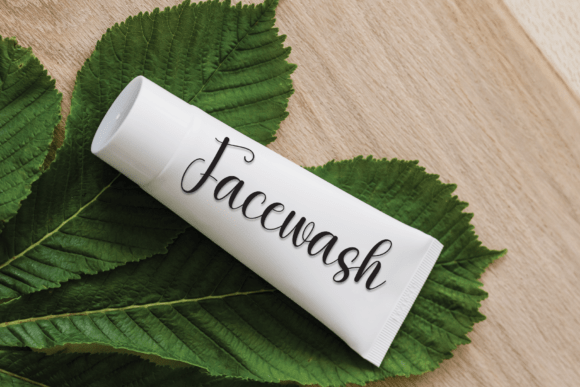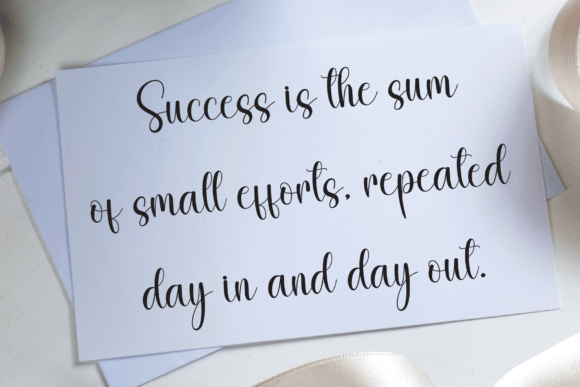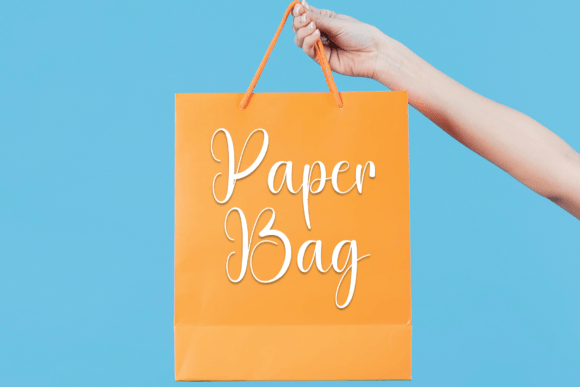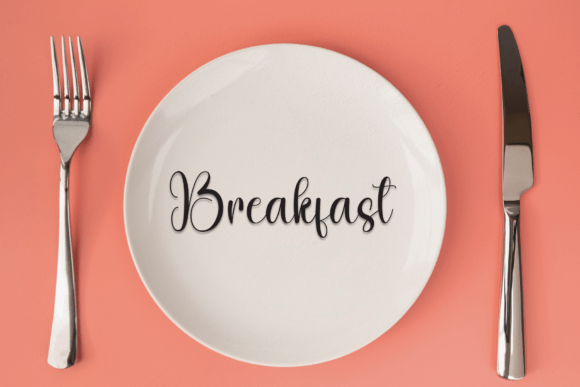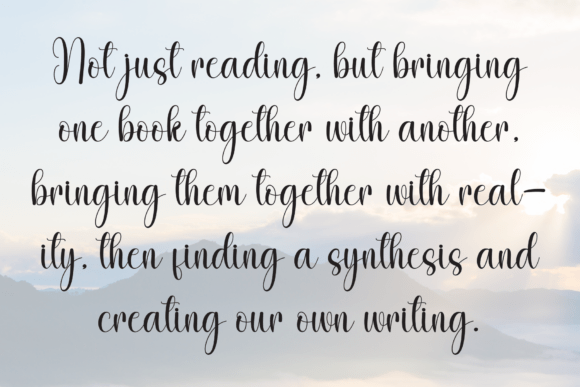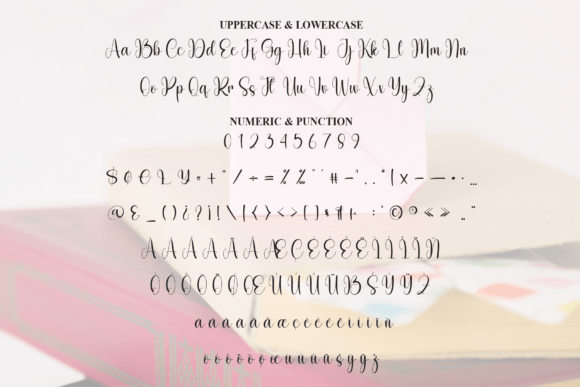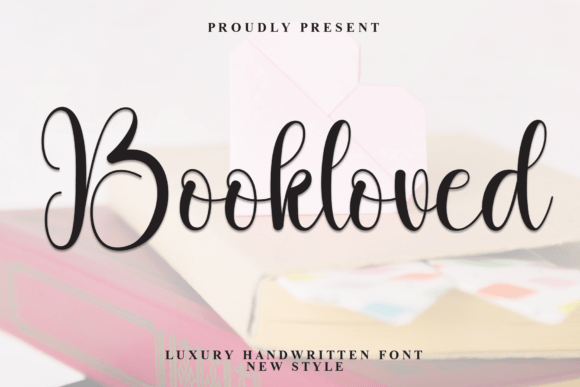
The Elegance of Bookloved Font: A Designer’s New Best Friend
I still remember the design project that led me to discover the Bookloved font. I was working on a logo for a luxury brand, and I needed a script font that exuded elegance and sophistication. After hours of searching, I stumbled upon Bookloved, and it was love at first sight. The fluid curves, the graceful strokes, and the polished details all came together to create a font that perfectly captured the essence of the brand. In this article, I’ll share my experience with Bookloved, its features, and how to make the most of it in your designs.
An Honest Review of Bookloved Font
What I Love About Bookloved ✨
- ✅ Elegant and sophisticated design that’s perfect for luxury brands
- ✅ Fluid curves and graceful strokes that give it a natural flow
- ✅ Polished details that make it stand out from other script fonts
- ✅ Versatile and can be used for a variety of design projects, from logos to social media graphics
- ⚠️ Limited availability of stylistic alternates, which might limit its use in certain design projects
- ⚠️ Might not be the best choice for body text due to its script nature
The Backstory of Bookloved Font
Bookloved font was designed with the intention of capturing the essence of hand-drawn calligraphy with a modern twist. The designer aimed to create a font that would exude elegance and sophistication, while also being versatile and easy to use. The result is a font that’s perfect for a variety of design projects, from logos to social media graphics.
Q: What is the best use for Bookloved font?
A: Bookloved font is ideal for designs that require an elegant and sophisticated look, such as logos, invitations, packaging, and social media graphics.
Q: Can I use Bookloved font for body text?
A: While Bookloved font is beautiful, it’s not recommended for body text due to its script nature. It’s best used for headlines, titles, or short paragraphs.